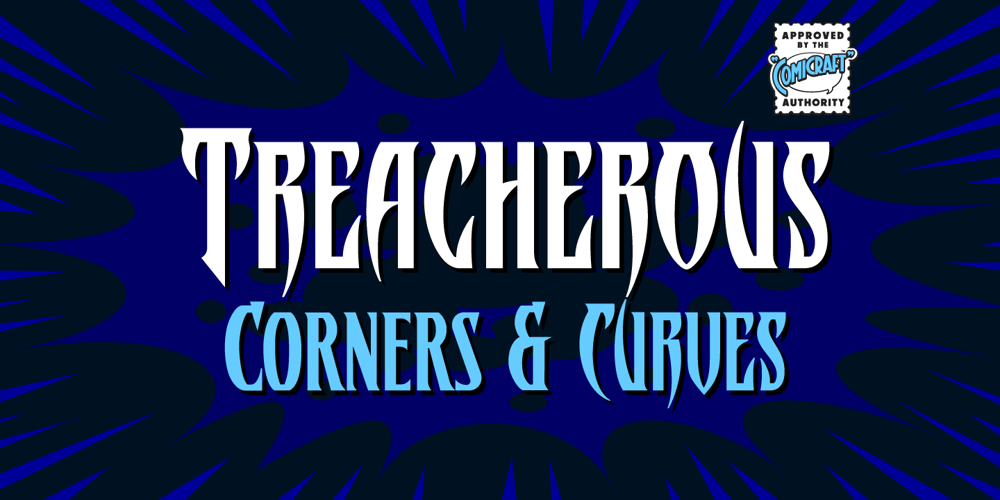
Treacherous
Treacherous font
Treacherous Font Family was designed by John Roshell and published by Comicraft. Treacherous contains 2 styles and family package options. Midnight, Pacific Coast Highway. You’re driving home alone at night and your battery’s dying. Your headlights have dimmed and you can barely see the road or the signpost up ahead. But there’s an eerie green light glimmering in your rear view mirror and that strange warning uttered by the pump attendant at the Devil’s Elbow gas station has put the frighteners on you. Is that Satan’s face glowering at you through the mist, or something far worse?